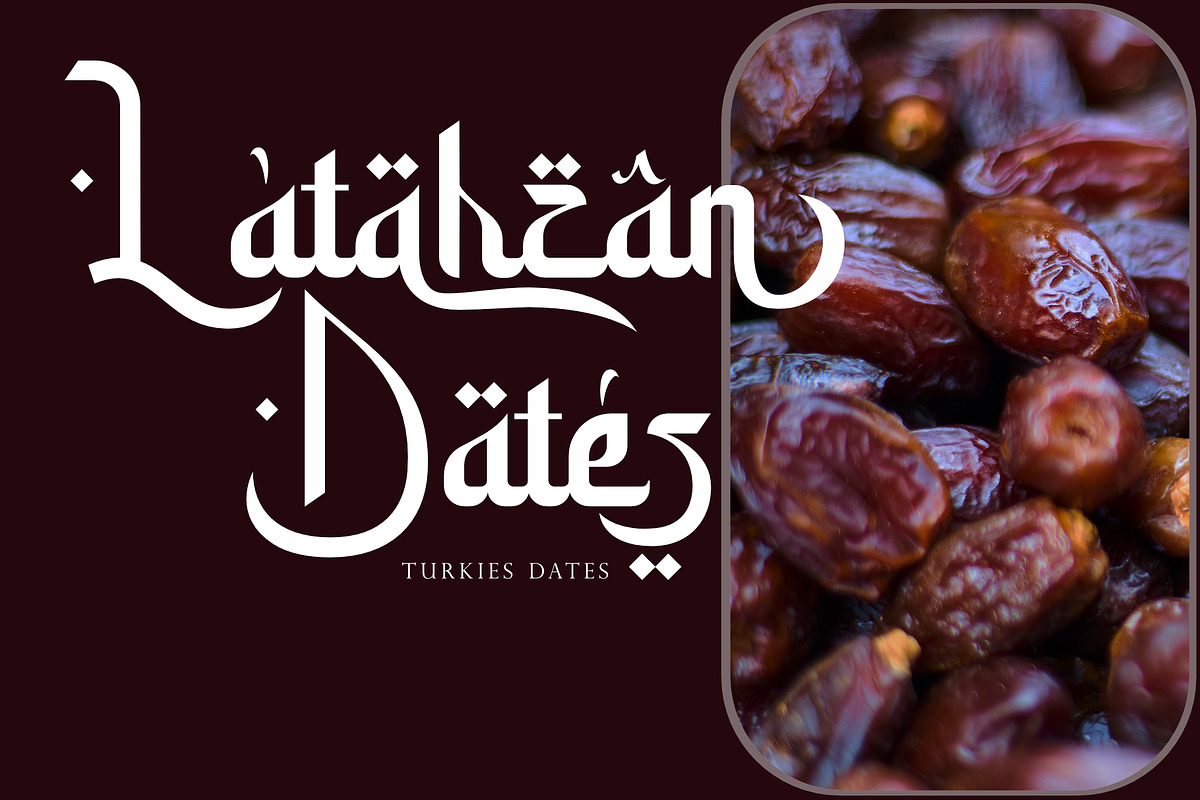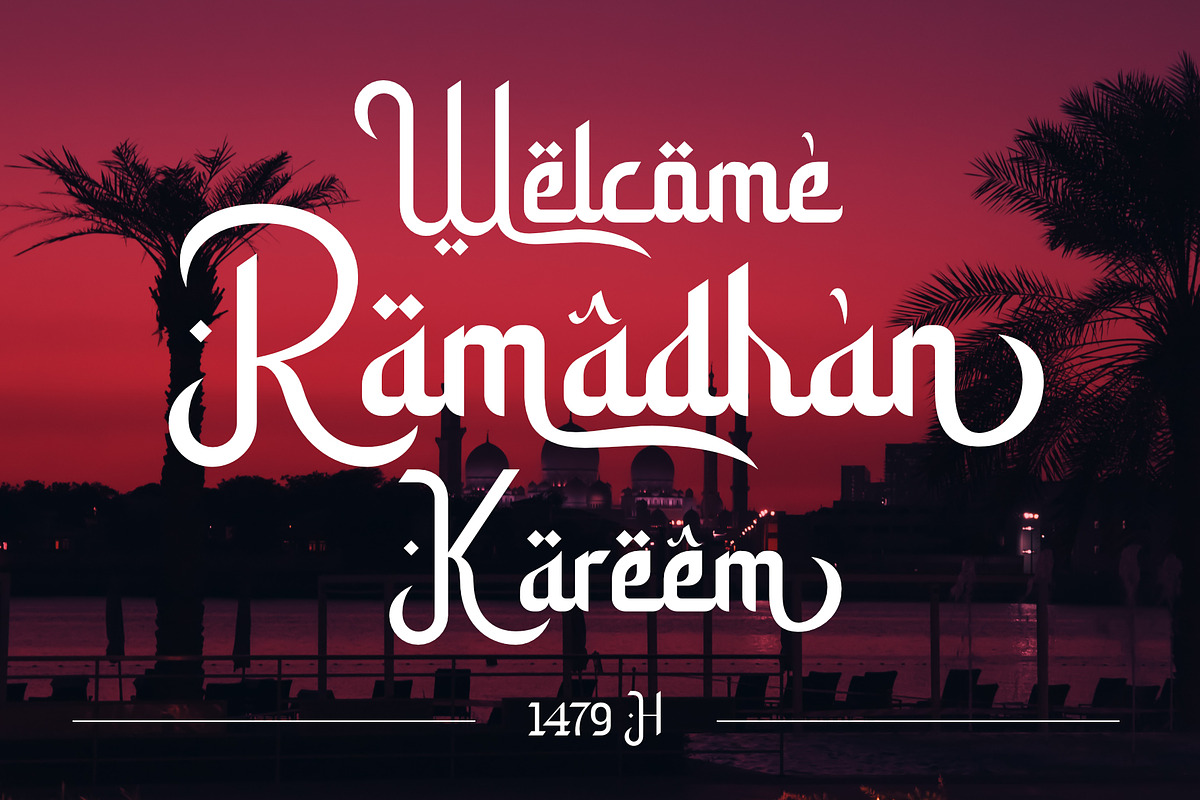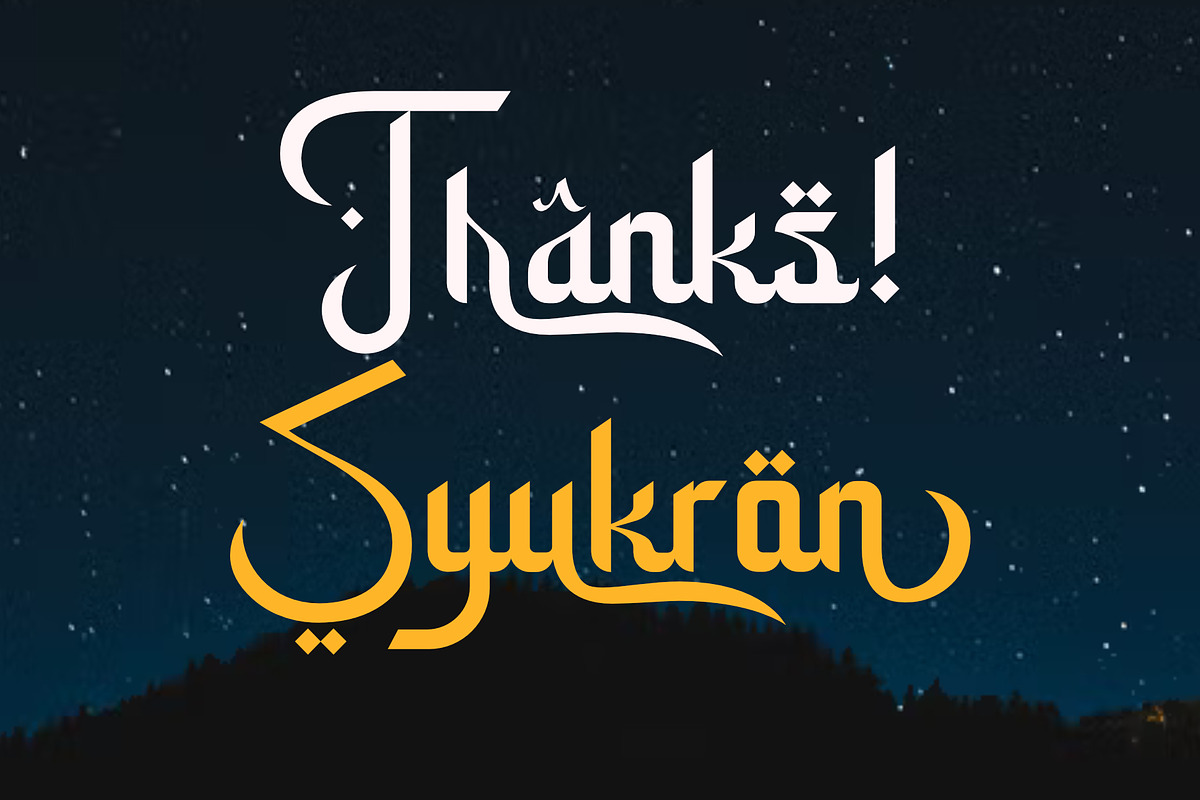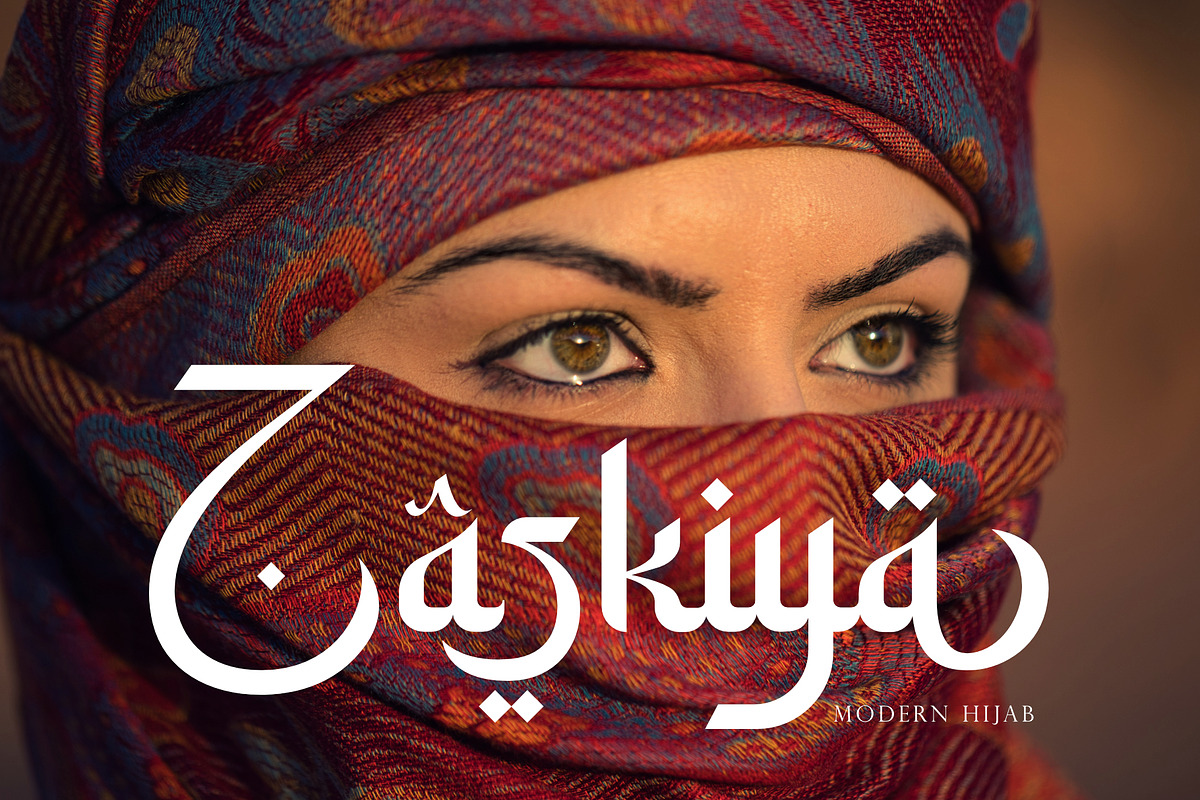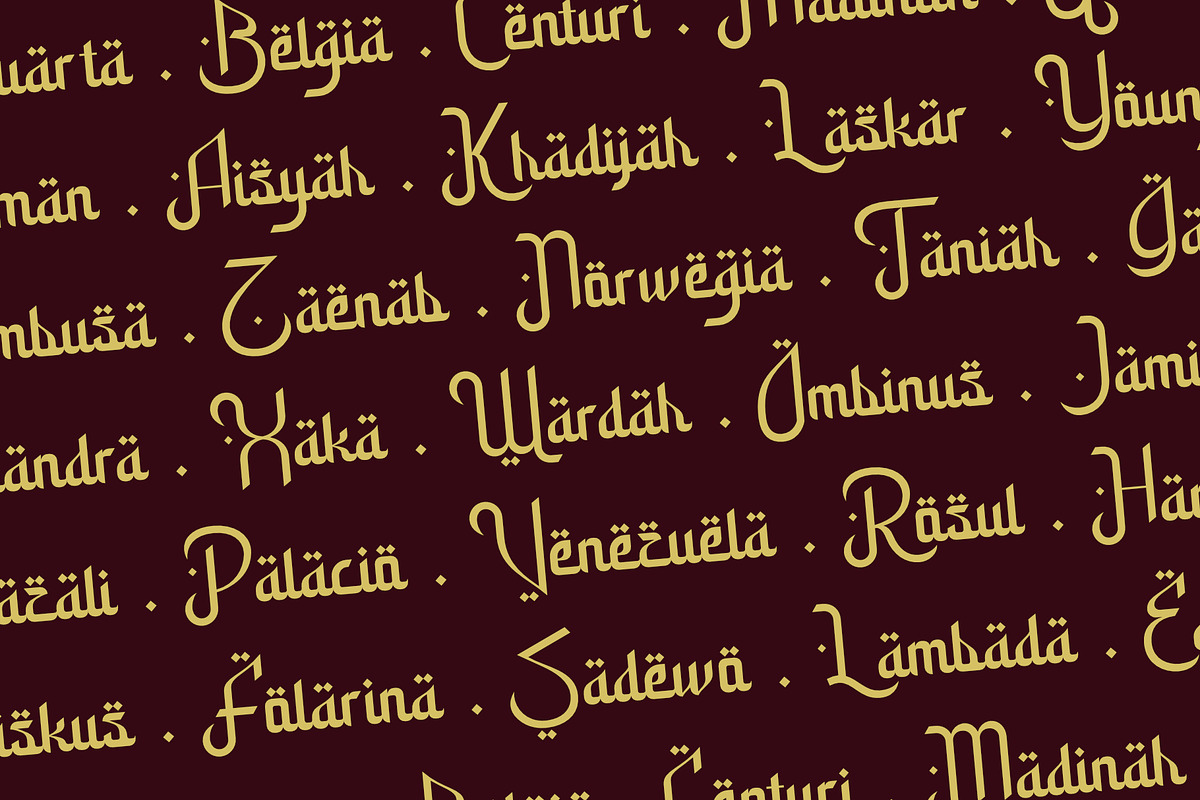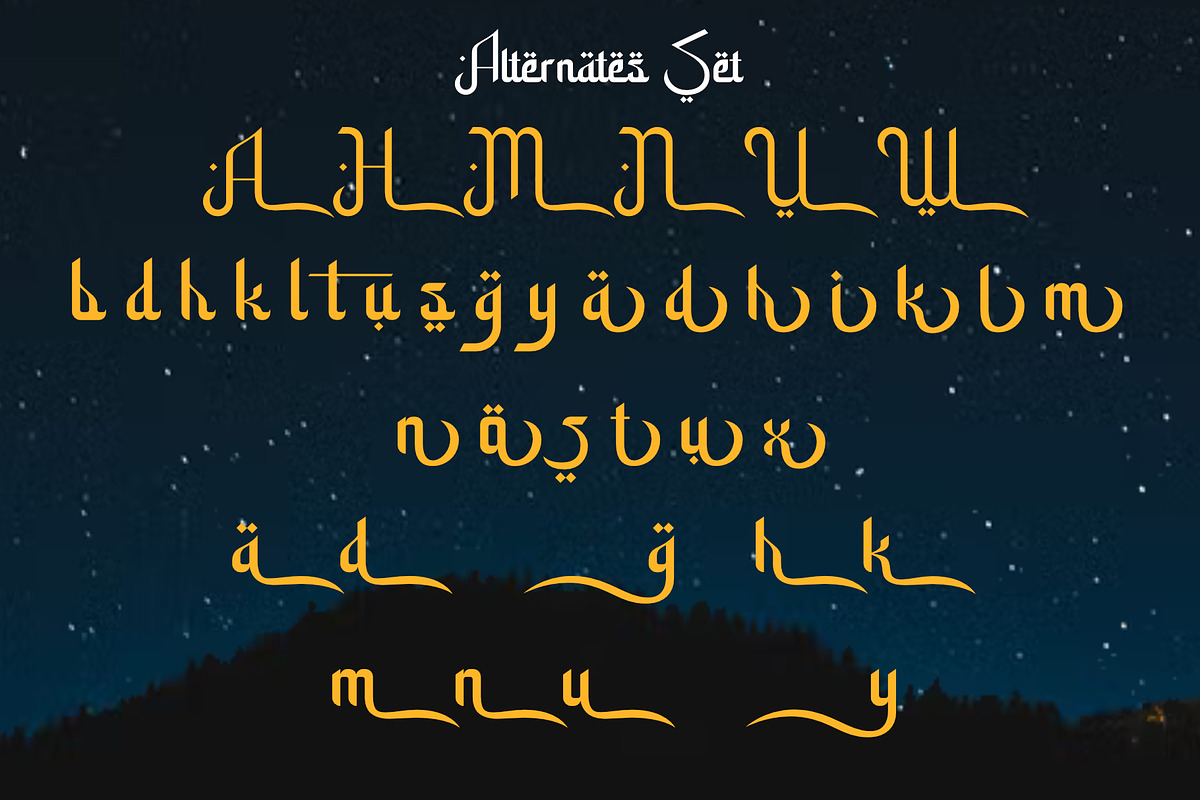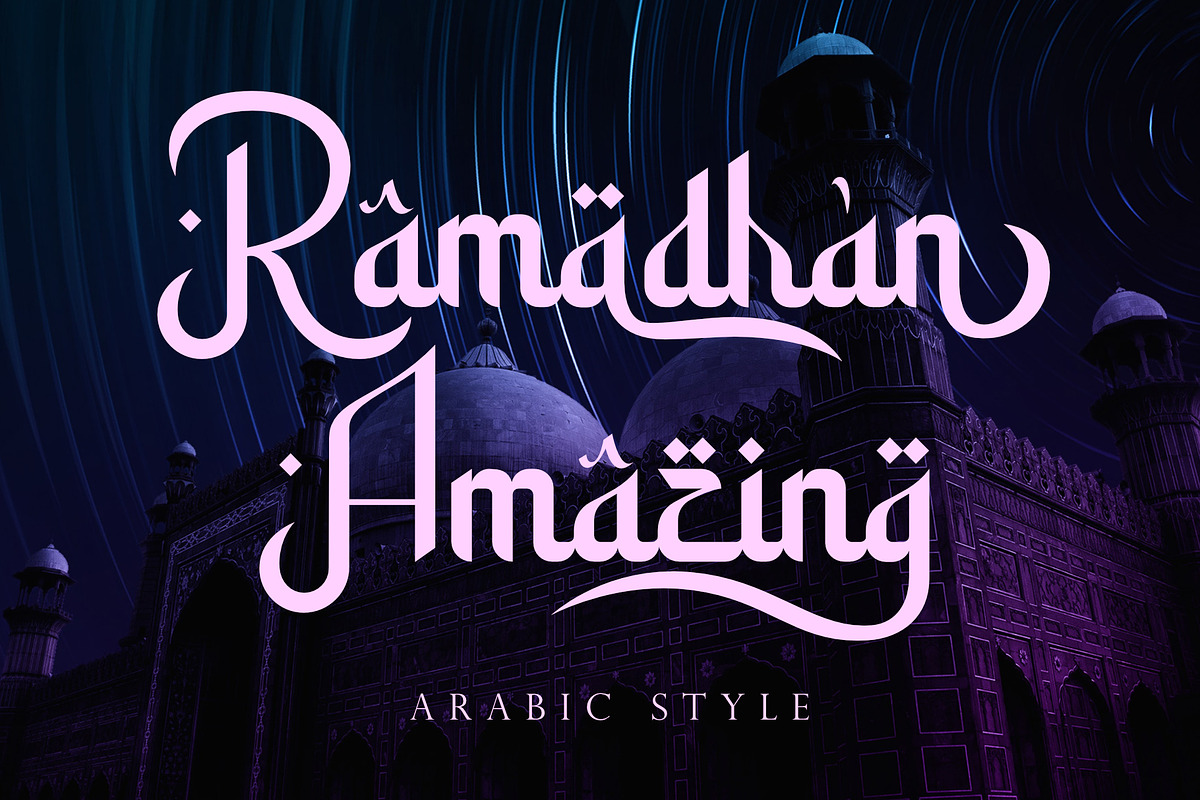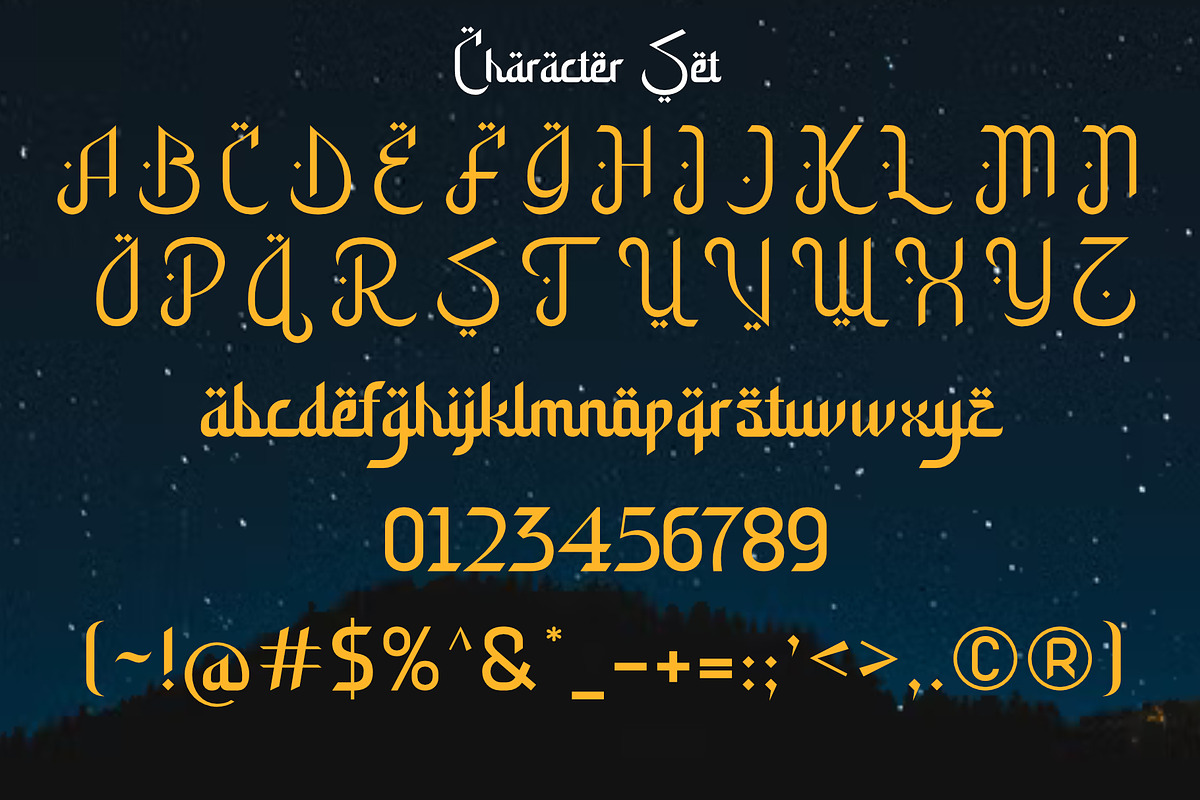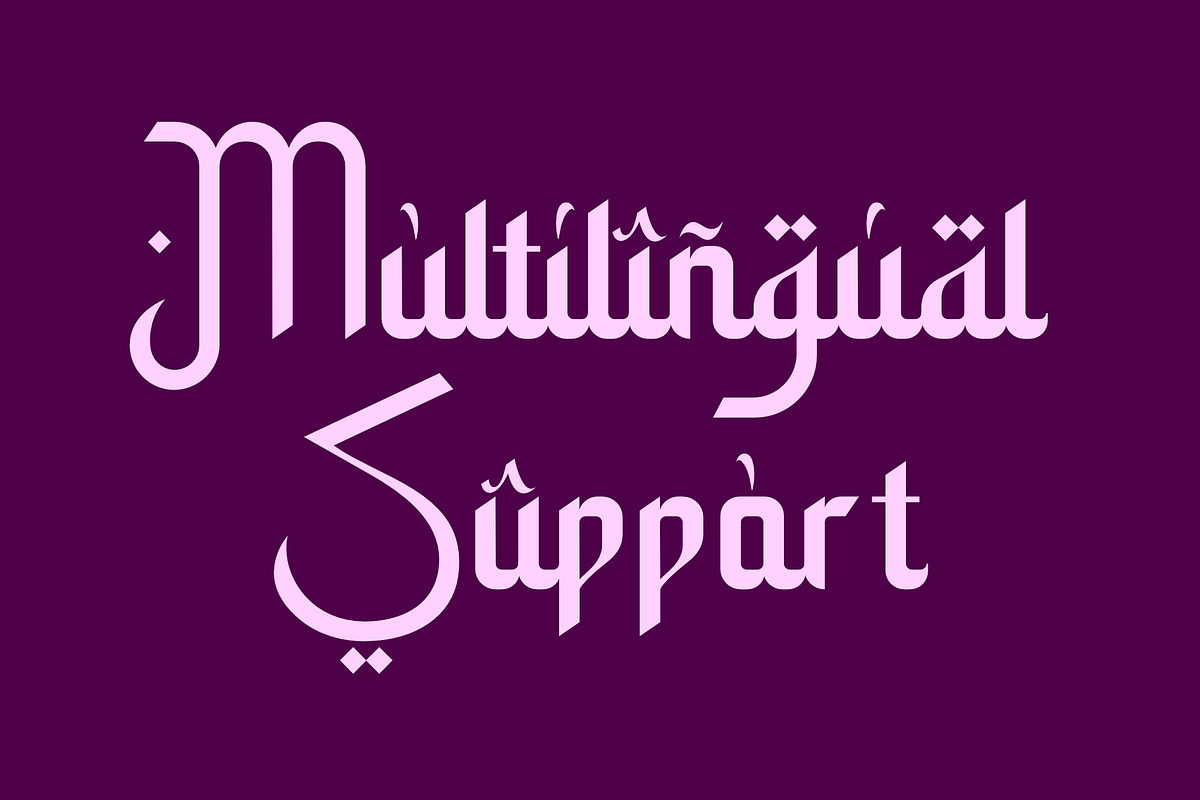
Ramadhan Amazing
Ramadhan Amazing is an Arabic-styled display font. It is suitable for branding, logotype, apparel, T-shirt, Hoodie, product packaging, quotes, flyers, posters, book covers, advertising, and more. This font is PUA encoded which means you can access all of the glyphs and swashes with ease!